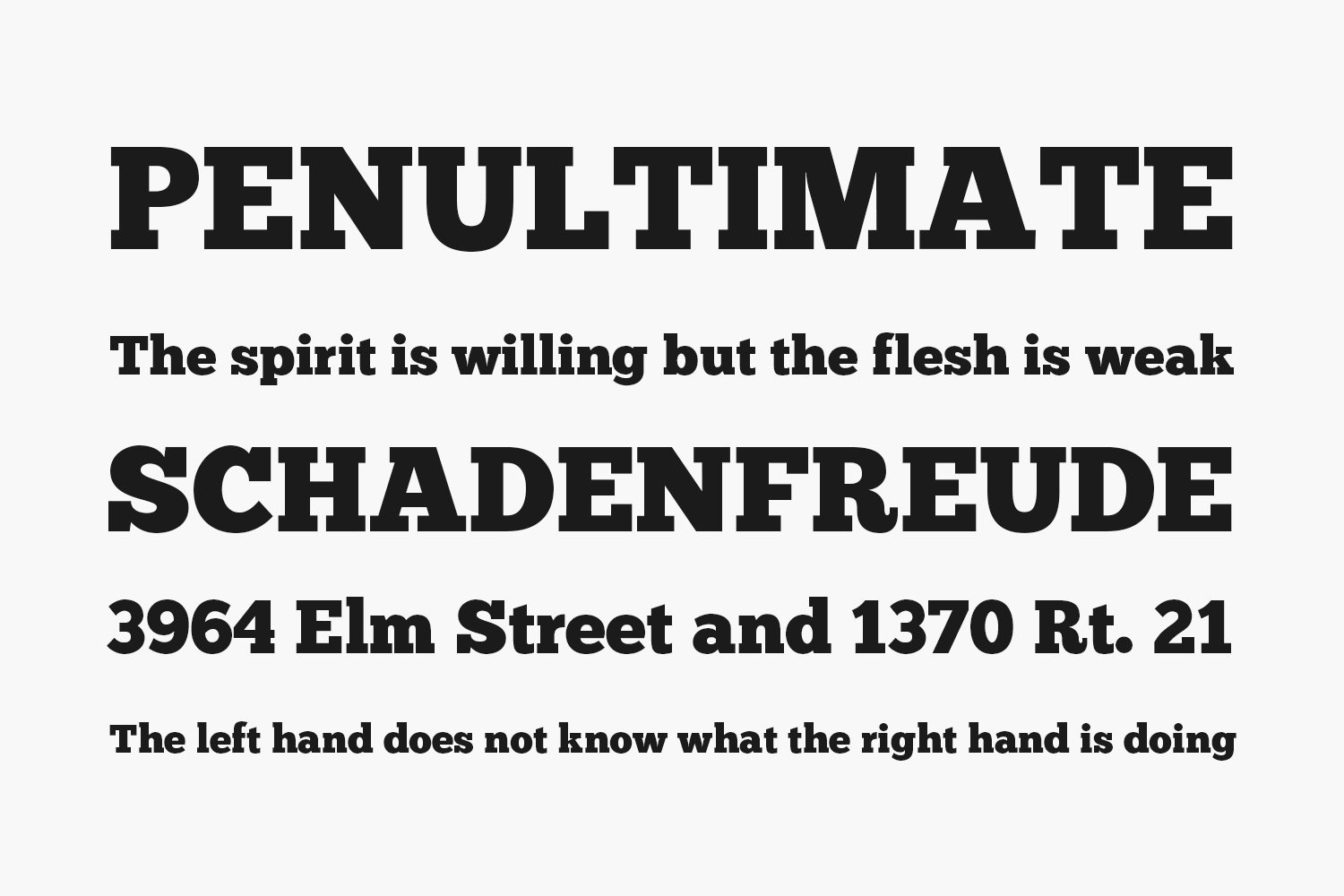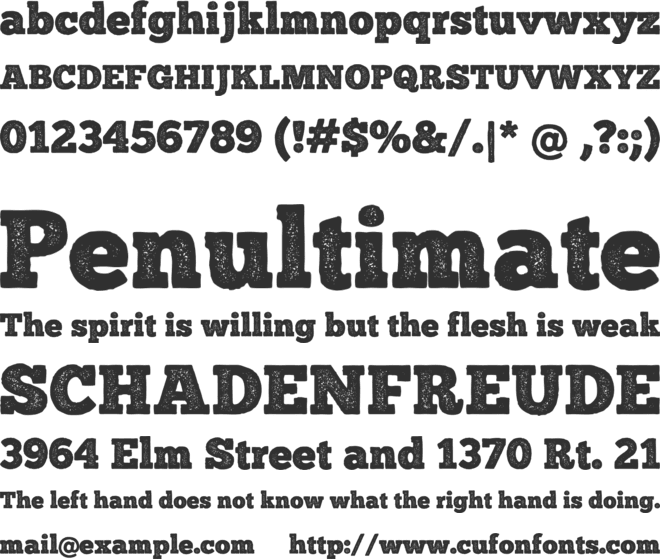
Chunkfive Print Font
Chunkfive Print Font - In 2014 an a new. Web used mainly for display, the fat block lettering is unreserved yet refined for contemporary use.